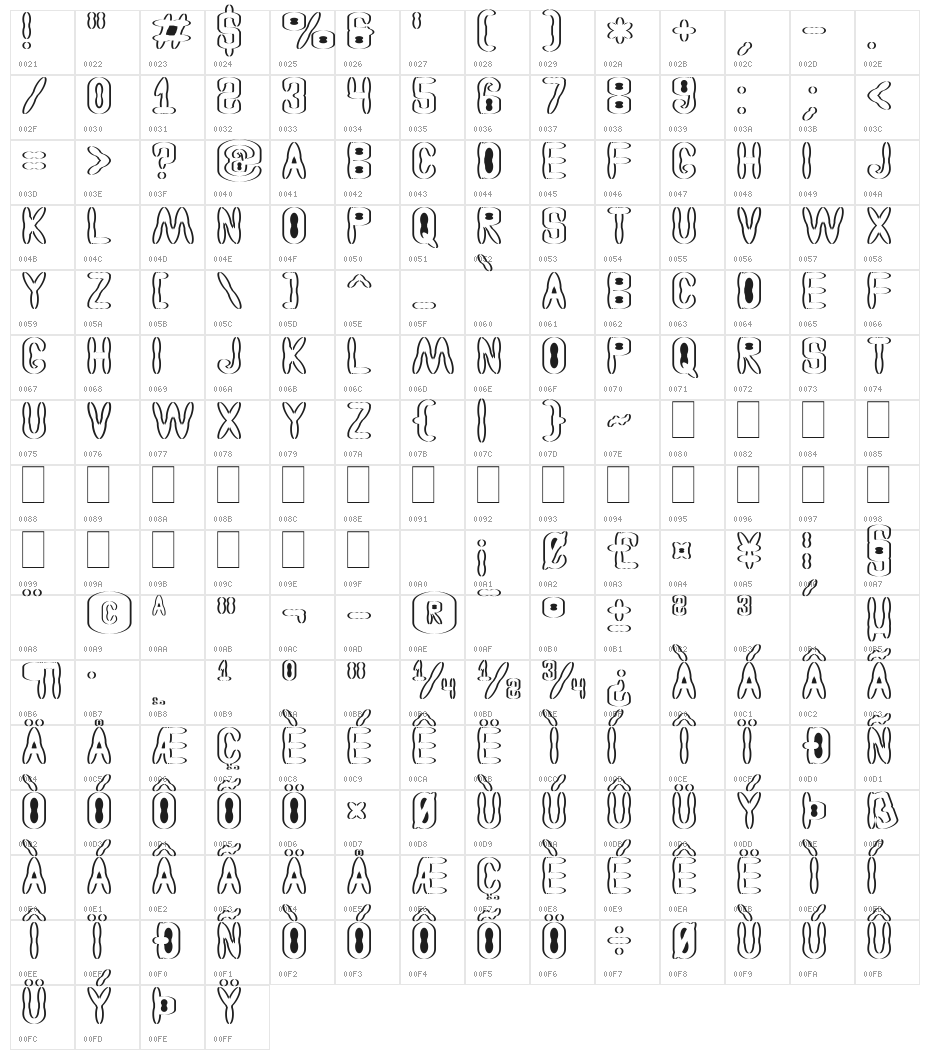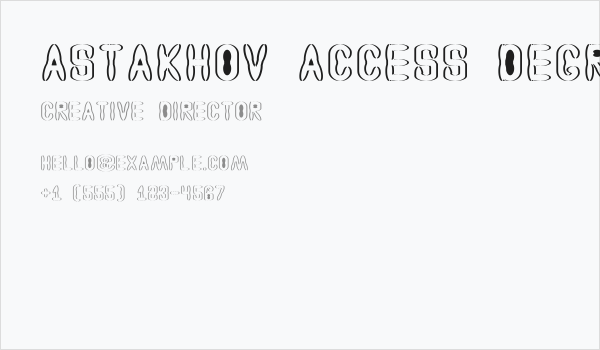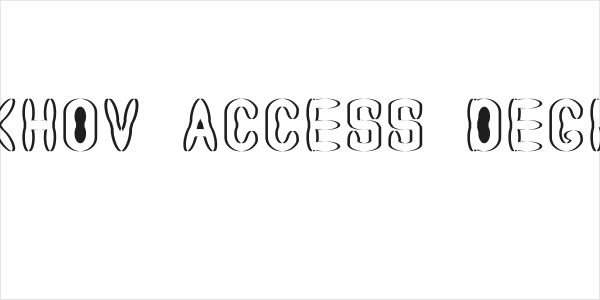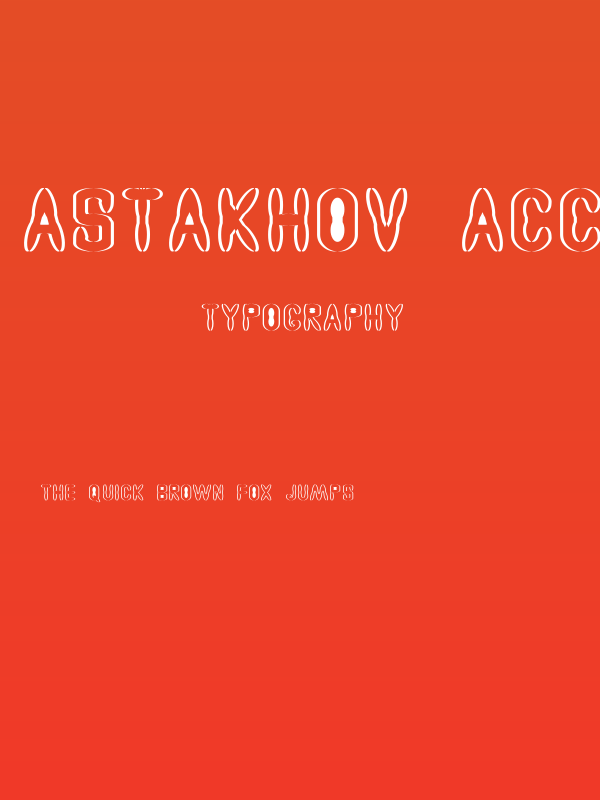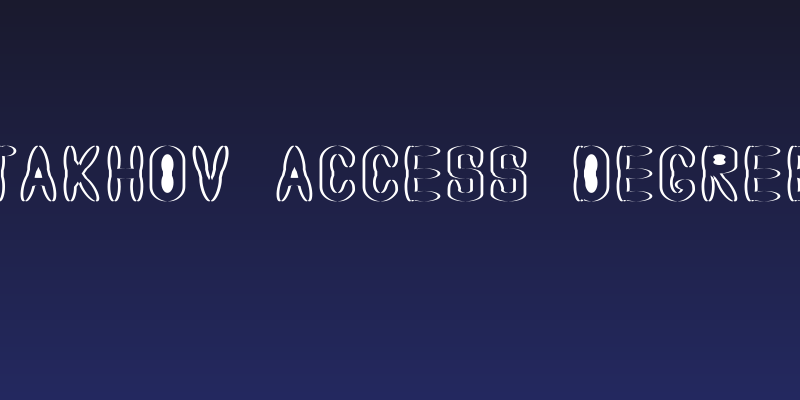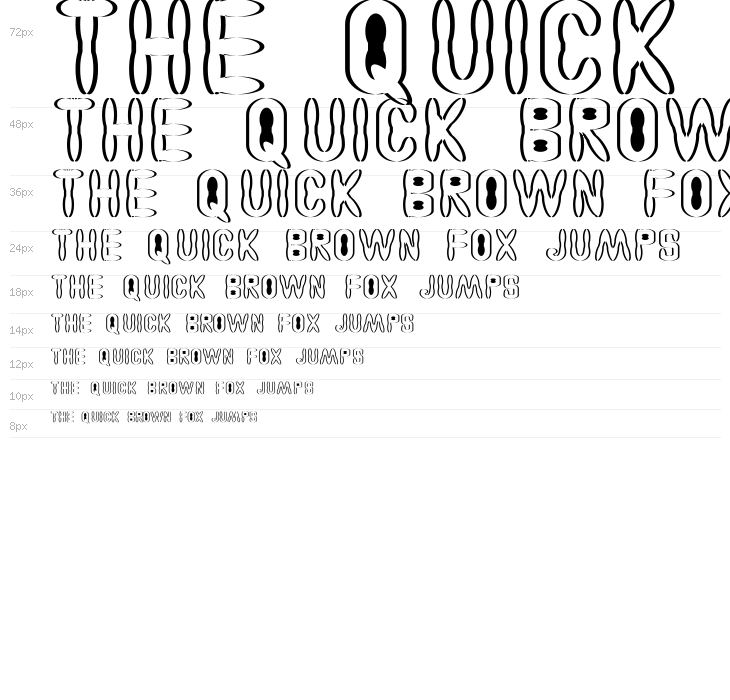
Astakhov Access Degree S Font
Astakhov Access Degree S Description
This font features a bold, playful design with a hollow, outlined style that gives it a unique, eye-catching appearance. Each character is crafted with a thick outer stroke and an inner void, creating a striking contrast that enhances its visual appeal. The letters are rounded and slightly irregular, adding a whimsical touch to the overall design. This font is particularly suitable for creative projects that require a fun and dynamic aesthetic. Its distinctive style makes it ideal for use in headlines, posters, and other display purposes where a strong visual impact is desired.
Overall StylePlayful, Modern
Use CaseHeadlines, Posters, Creative Displays
Proposed ProjectsPerfect for posters, headlines, children's books, and any project needing a fun, dynamic look.